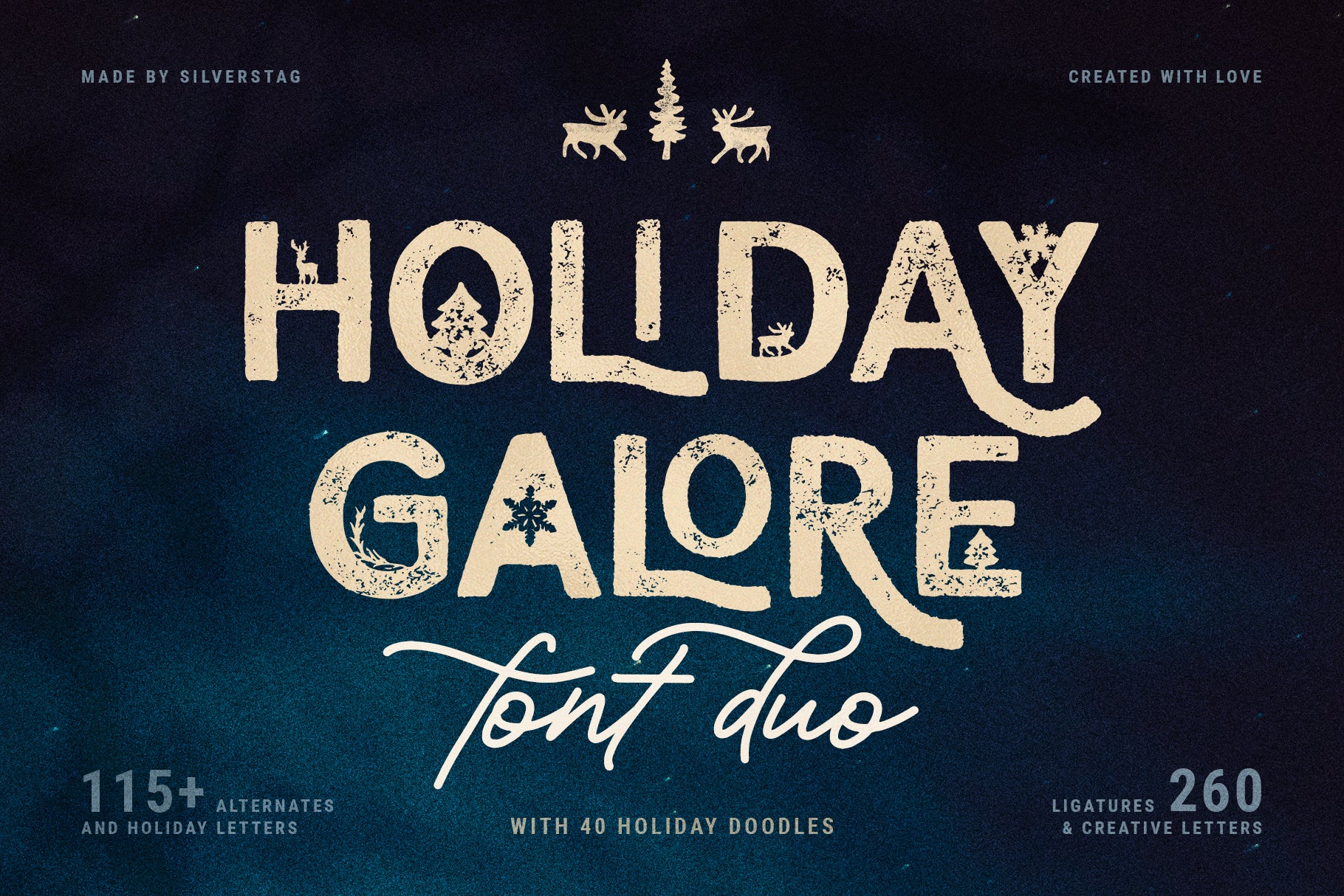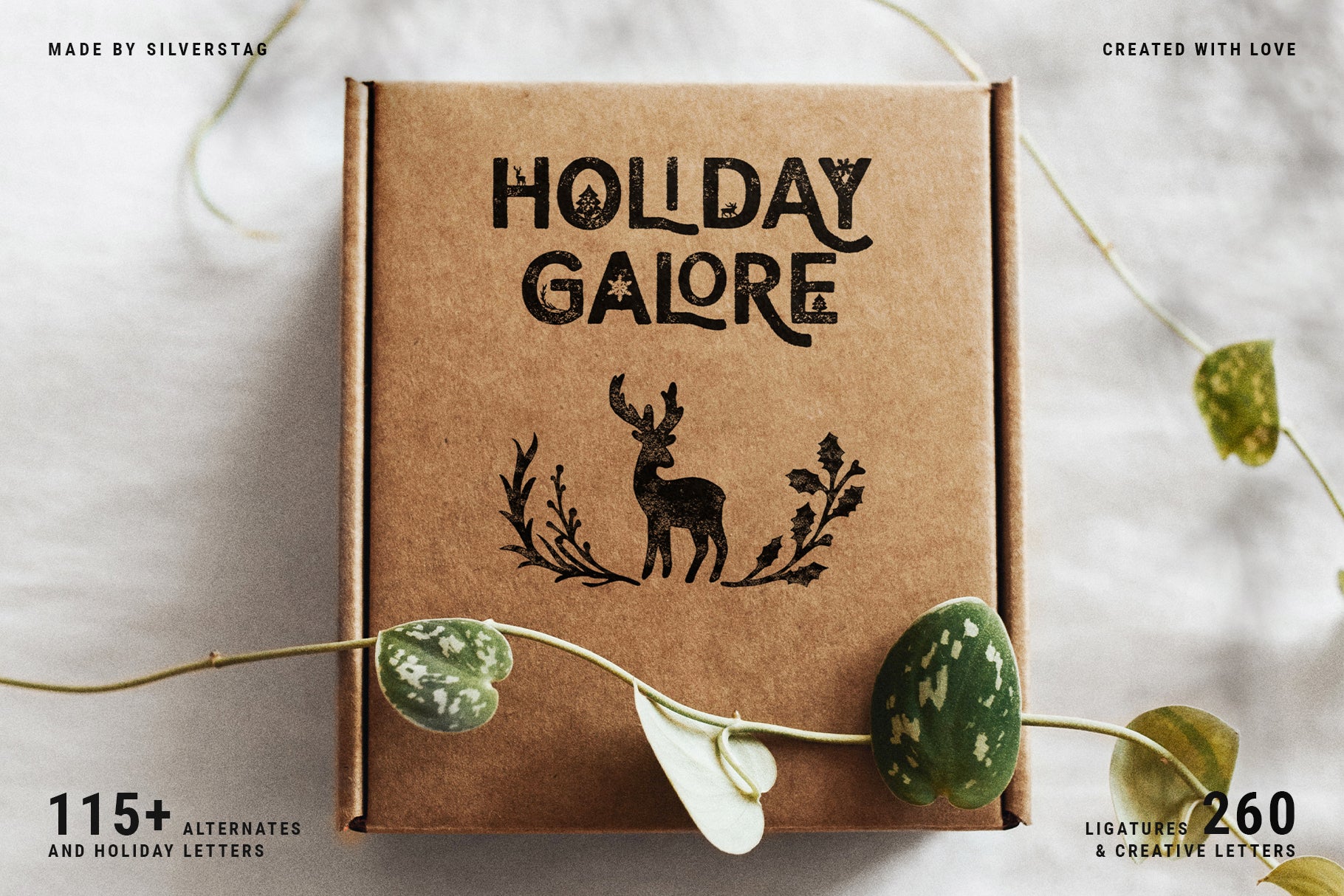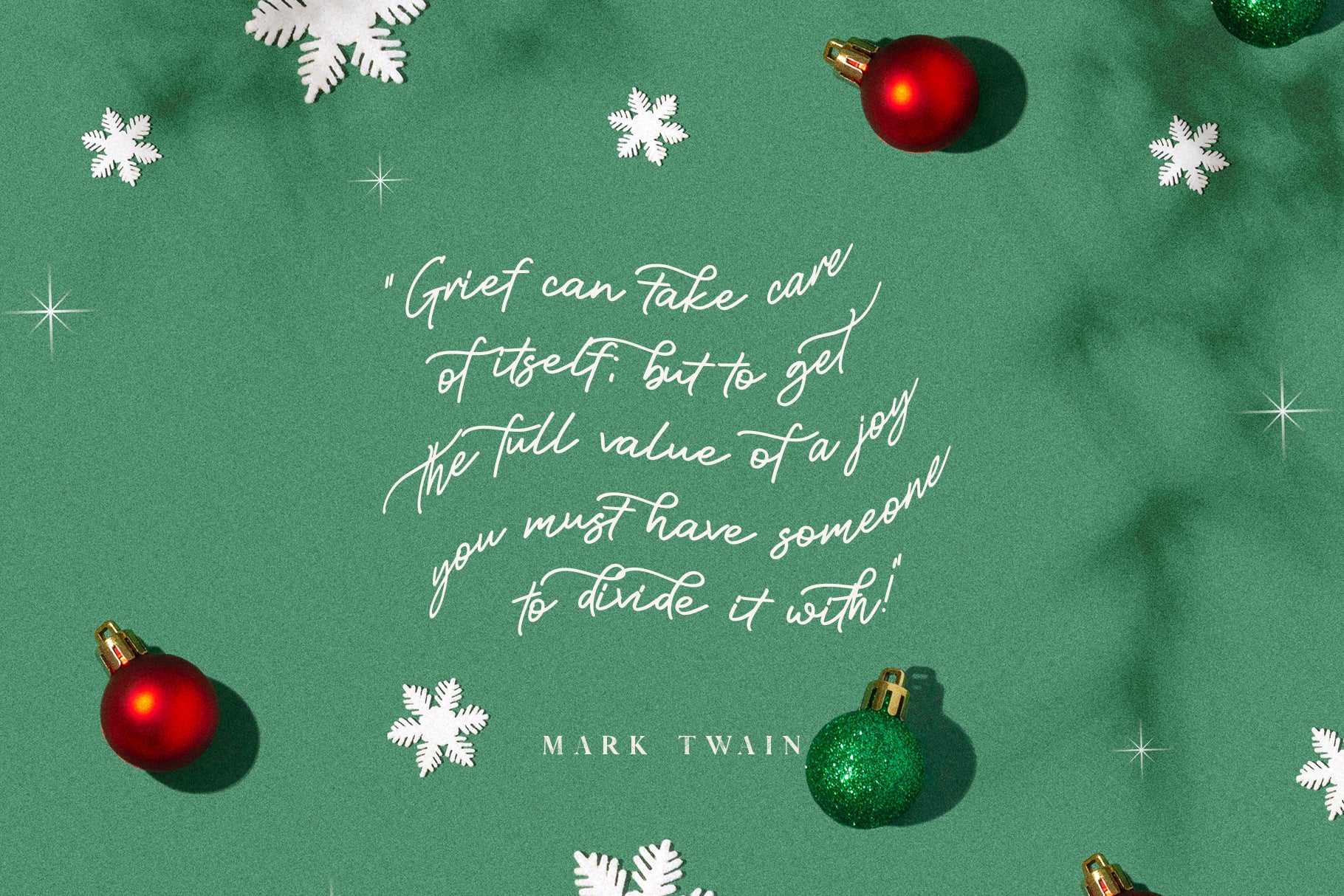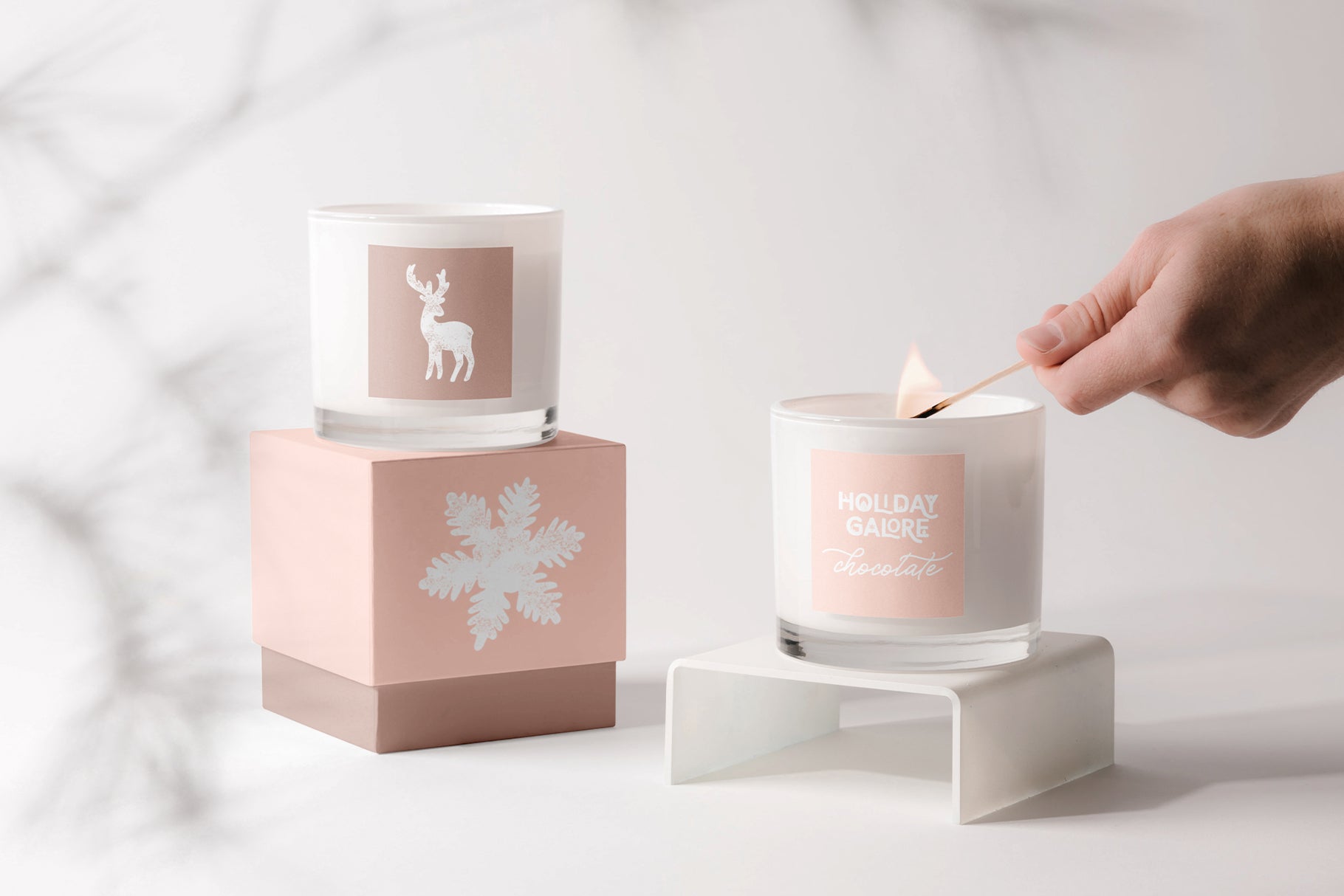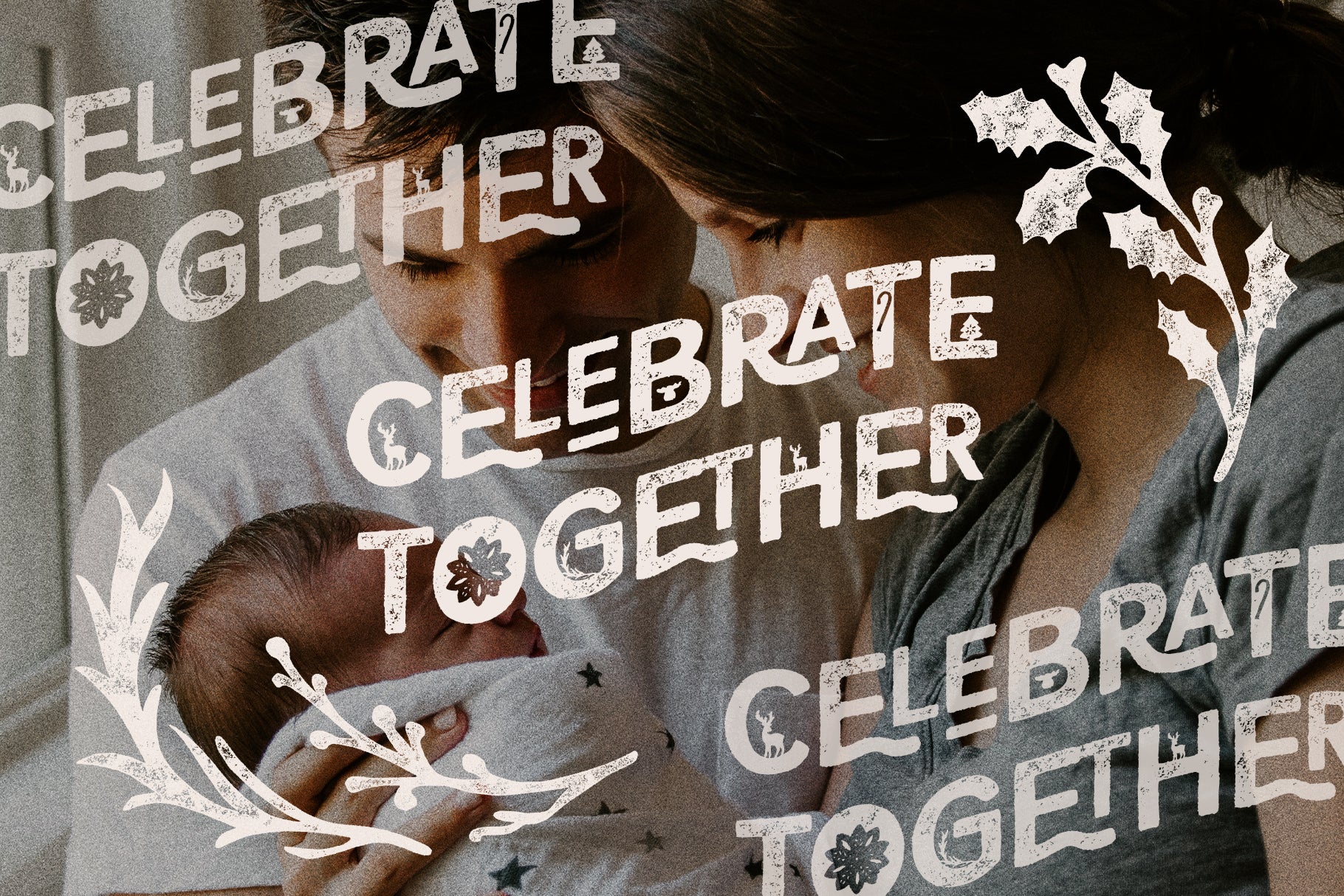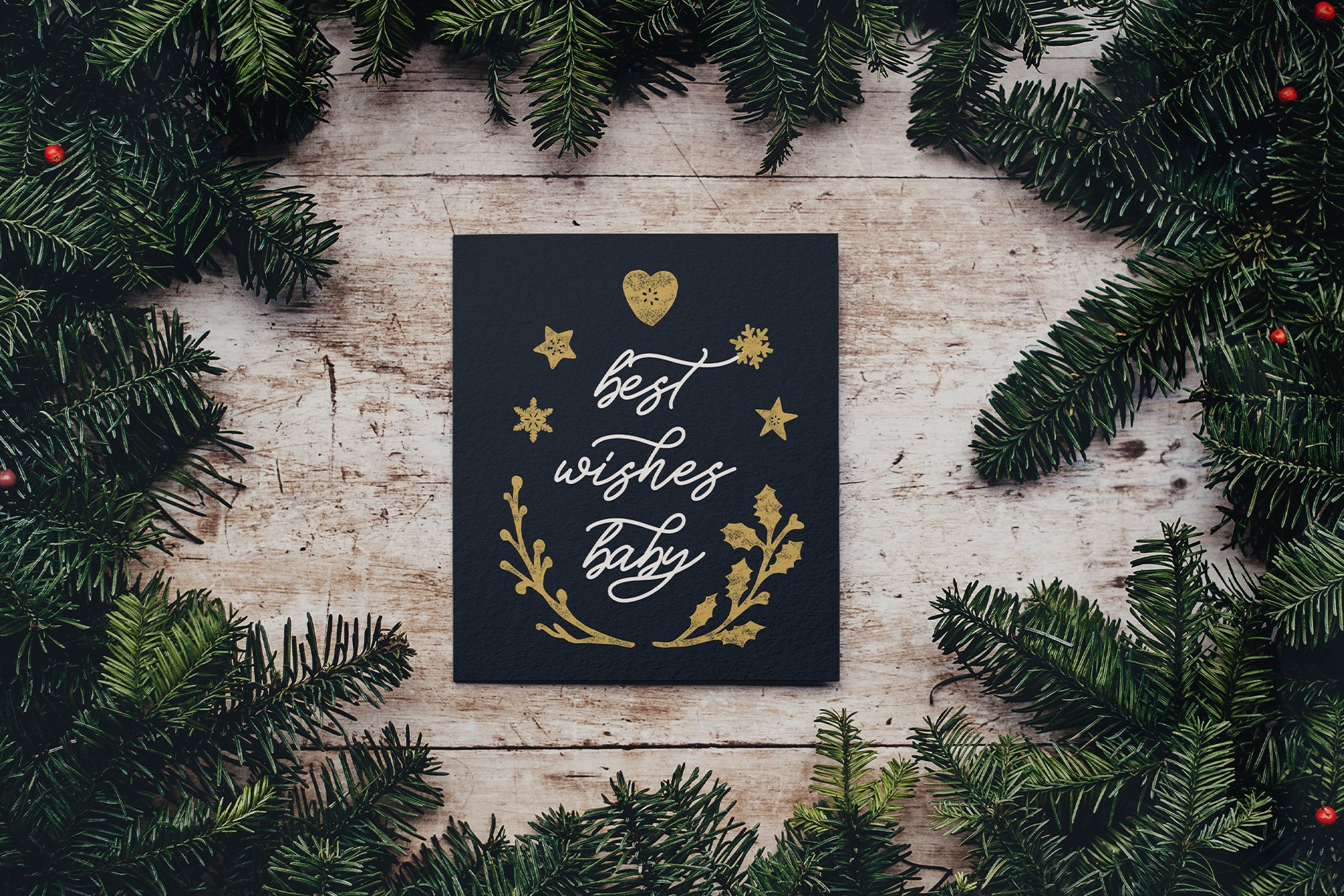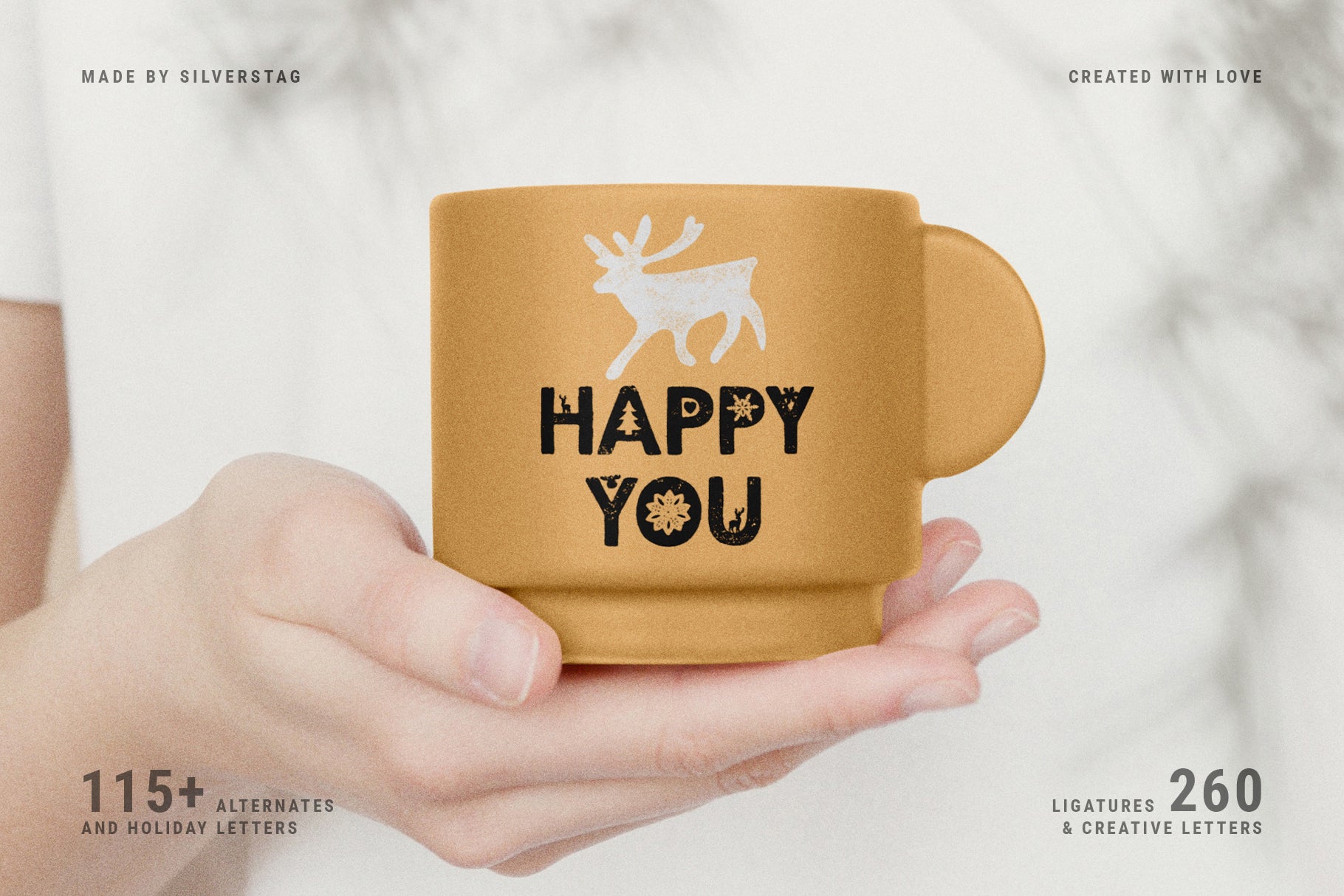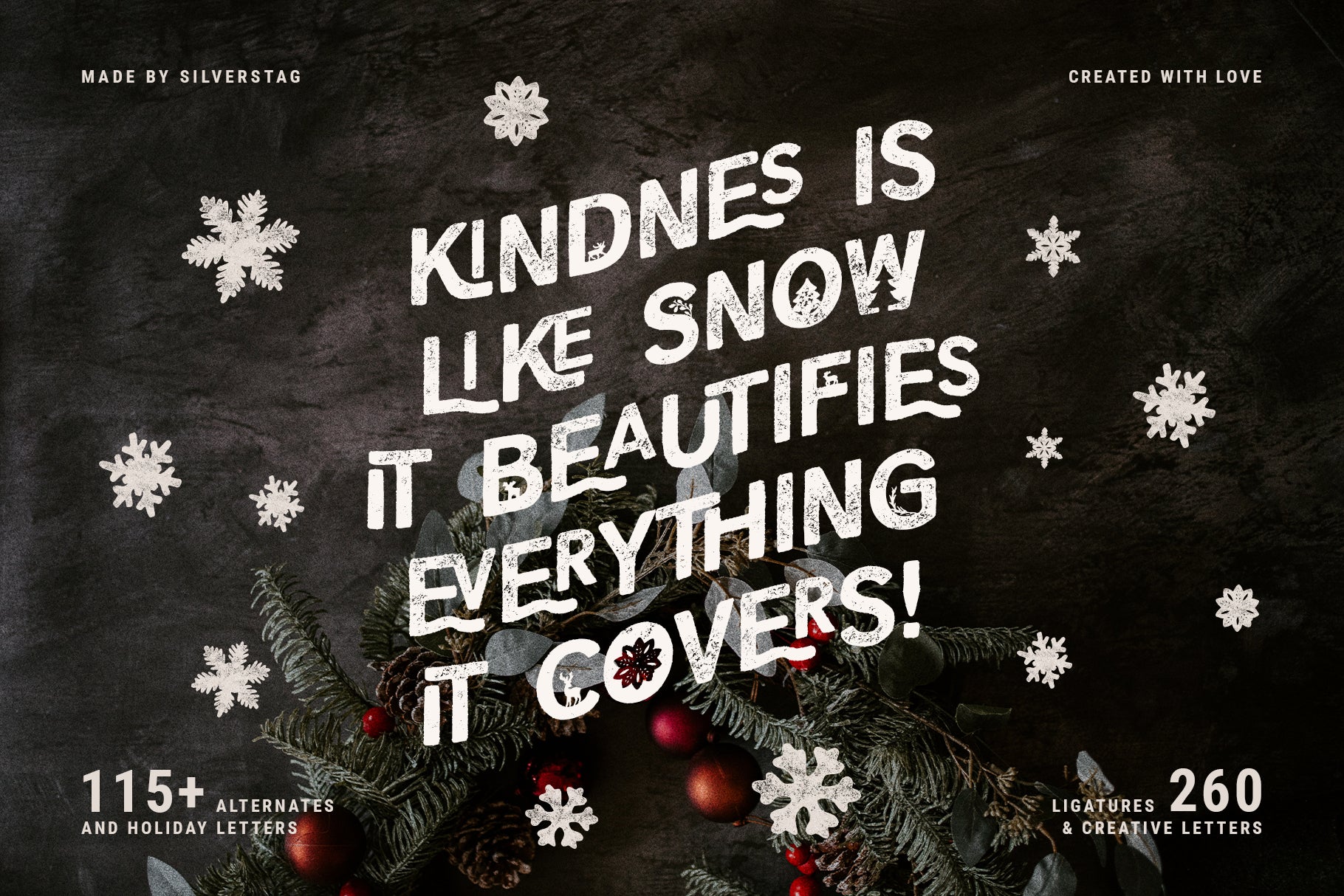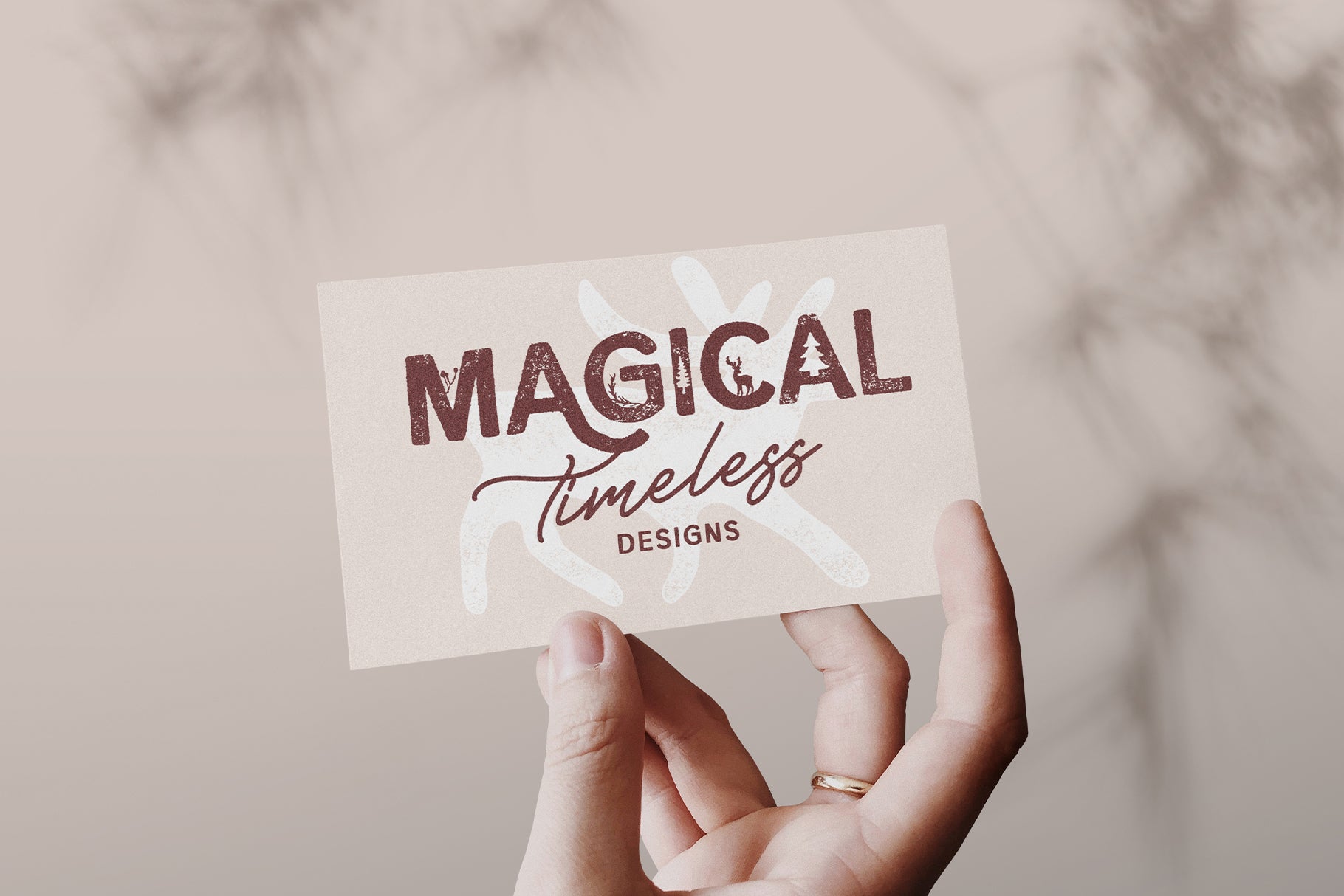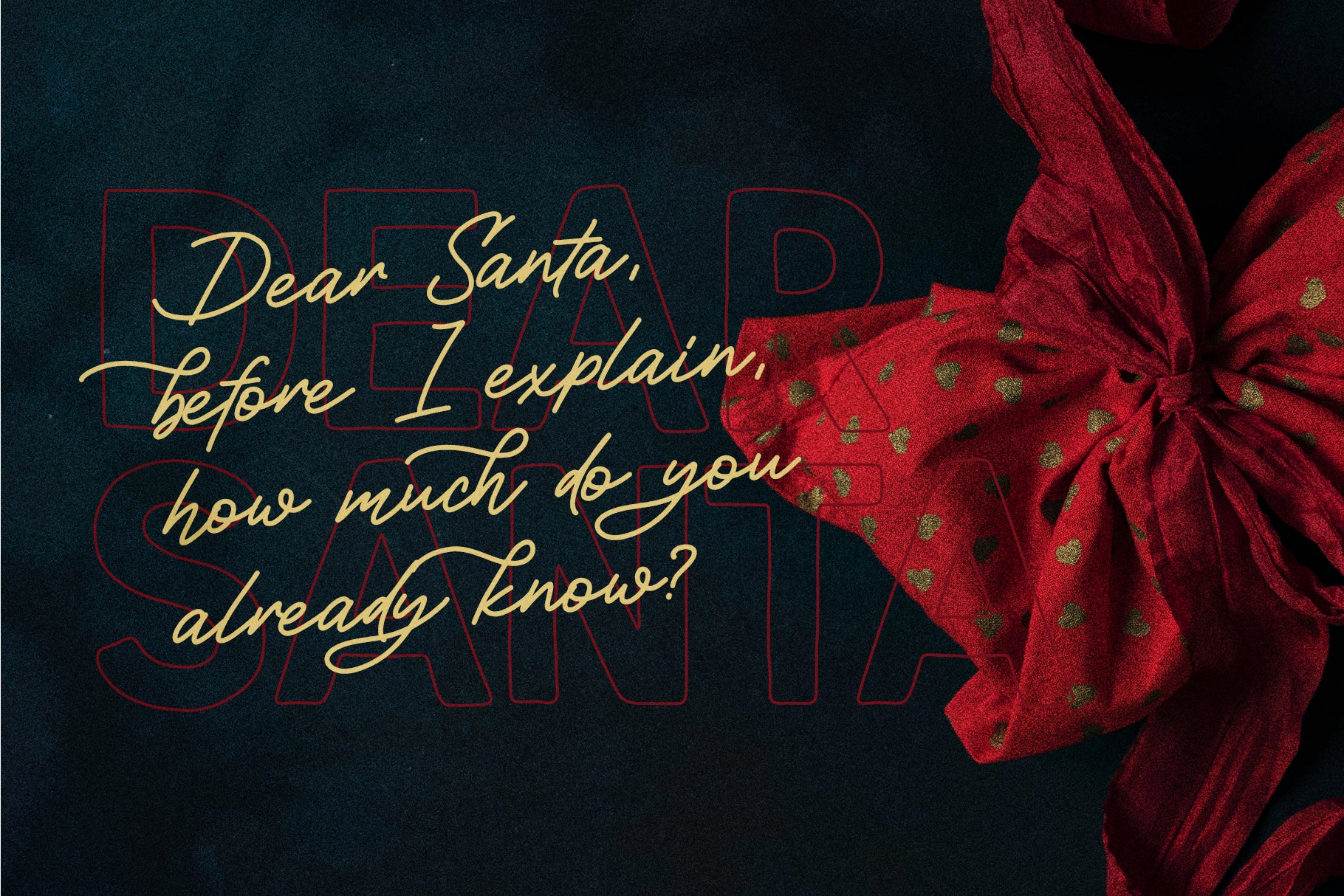
Celebrate the magic of the holidays with Holiday Galore, a 100% hand-drawn font duo packed with festive charm. This creative font collection features a playful holiday-inspired sans serif (in Regular, Vintage, and Outline styles) and a hand-drawn script font, both filled with over 115 alternate letters, 260 ligatures, and accompanied by 40 hand-drawn doodles.
Designed to make your holiday projects stand out, Holiday Galore brings creativity, versatility, and a whimsical touch to logos, invitations, packaging, social media posts, stationery, and more. The sans fonts include festive elements like snowflakes, Christmas trees, reindeer, and more within their alternates, while the script adds that perfect hand-crafted feel.
Whether you’re crafting cheerful holiday cards or festive brand visuals, Holiday Galore delivers creativity with a joyful spirit.